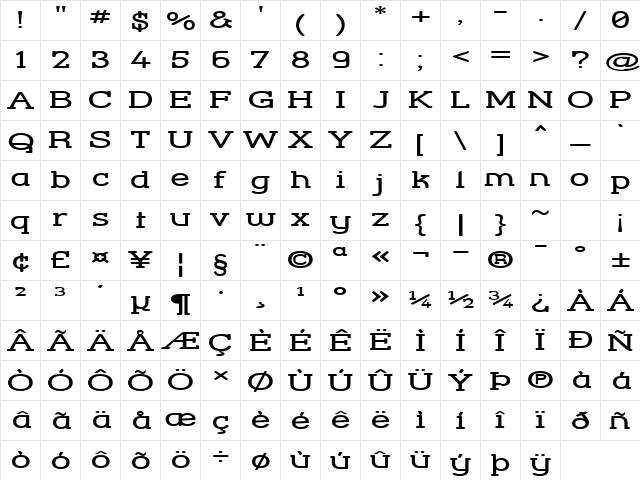
Street Corner Slab Extend Regular
Design Context for Street Corner Slab Extend Typeface
Street Corner Slab Extend features prominent, blocky serifs that give it a confident, grounded presence — equally at home in editorial settings and bold branding work.
Suited to magazines, political campaign materials, bold packaging, and any setting where authority matters.
Pro Tip: Use Street Corner Slab Extend for headlines and subheadings where its slab serifs can make an impression. It also holds up well in mid-size body copy thanks to its sturdy construction.